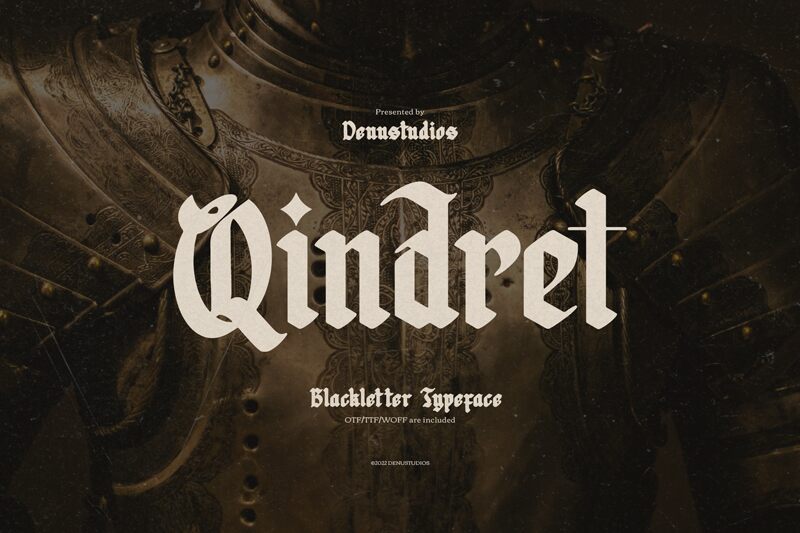
Qindret by Denustudios is a free medieval gothic font with the dense, ceremonial feel of old blackletter signage. The letters lean on steep broken strokes, diamond-like dots, and sharply cut joins that make the texture feel dark, formal, and a little severe without turning overly ornate.
It fits branding for breweries, tattoo studios, record sleeves, festival posters, and game title cards where a historic edge matters more than softness. As a free font, Qindret also works for short headlines, chapter openers, and monogram-style marks, because its compact rhythm and pointed details give even a few letters a strong presence.